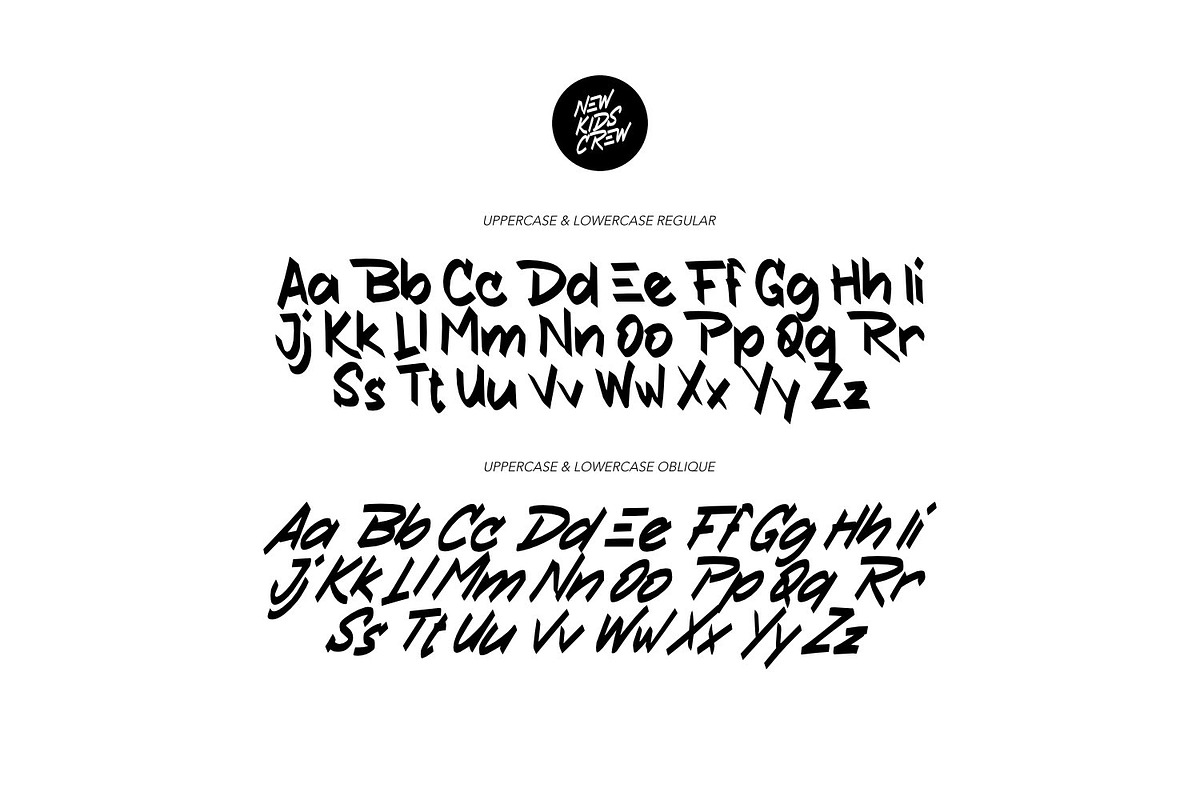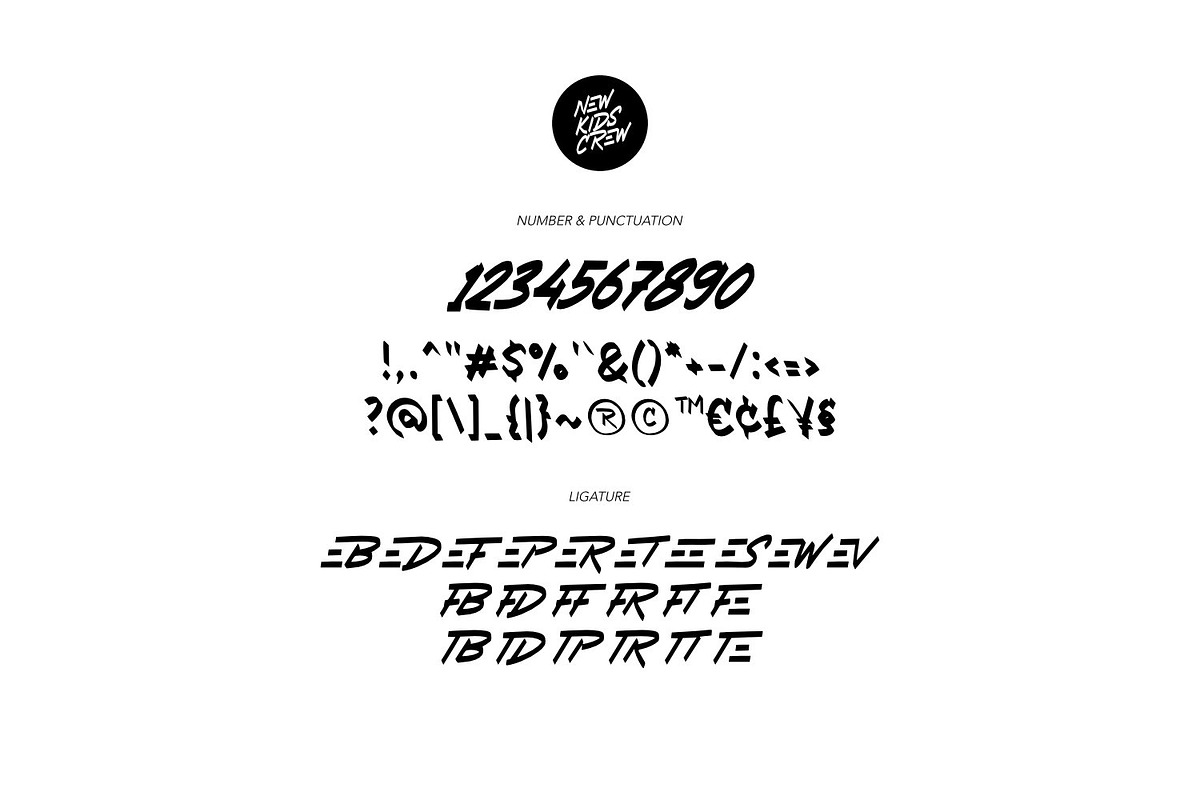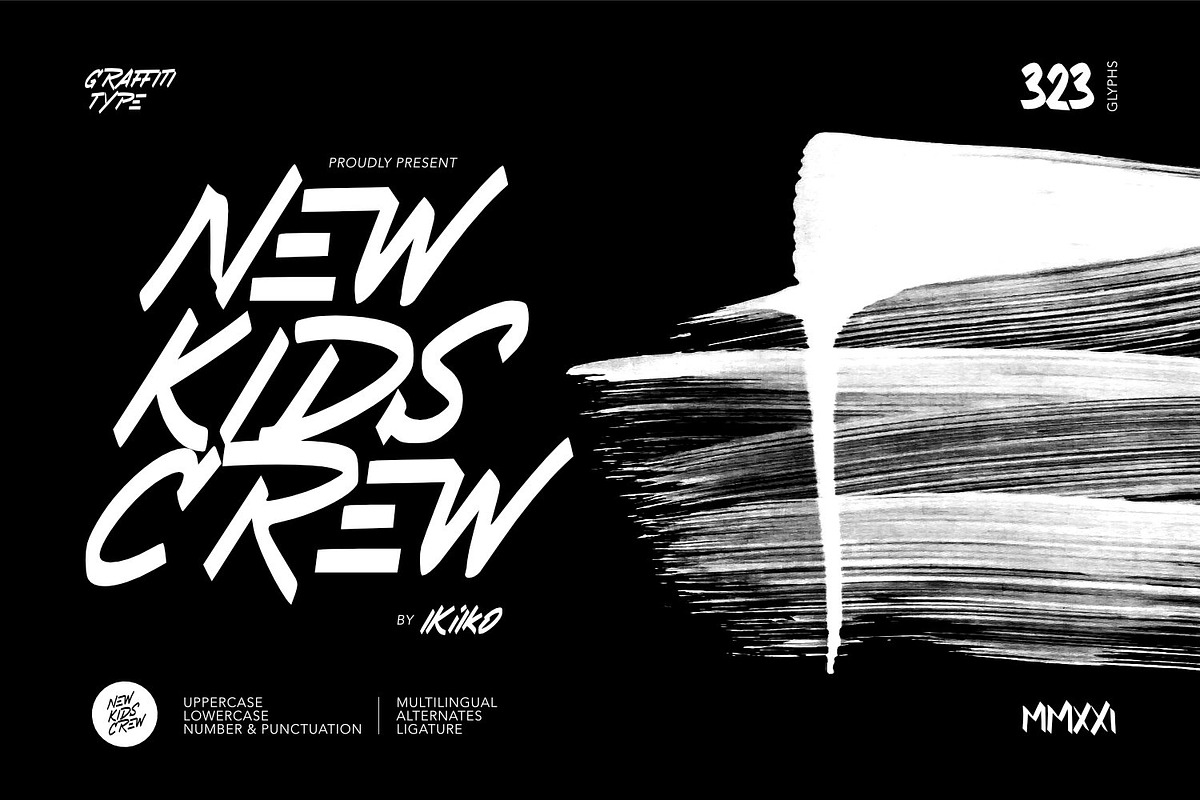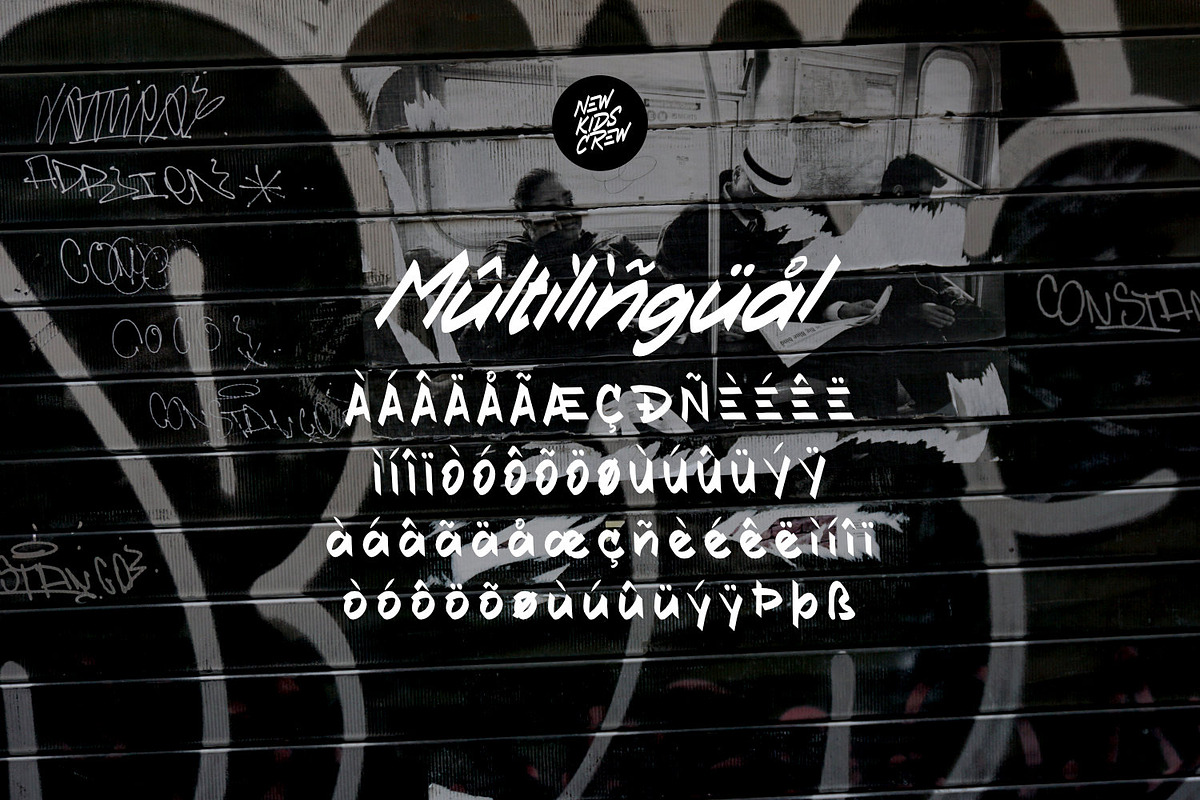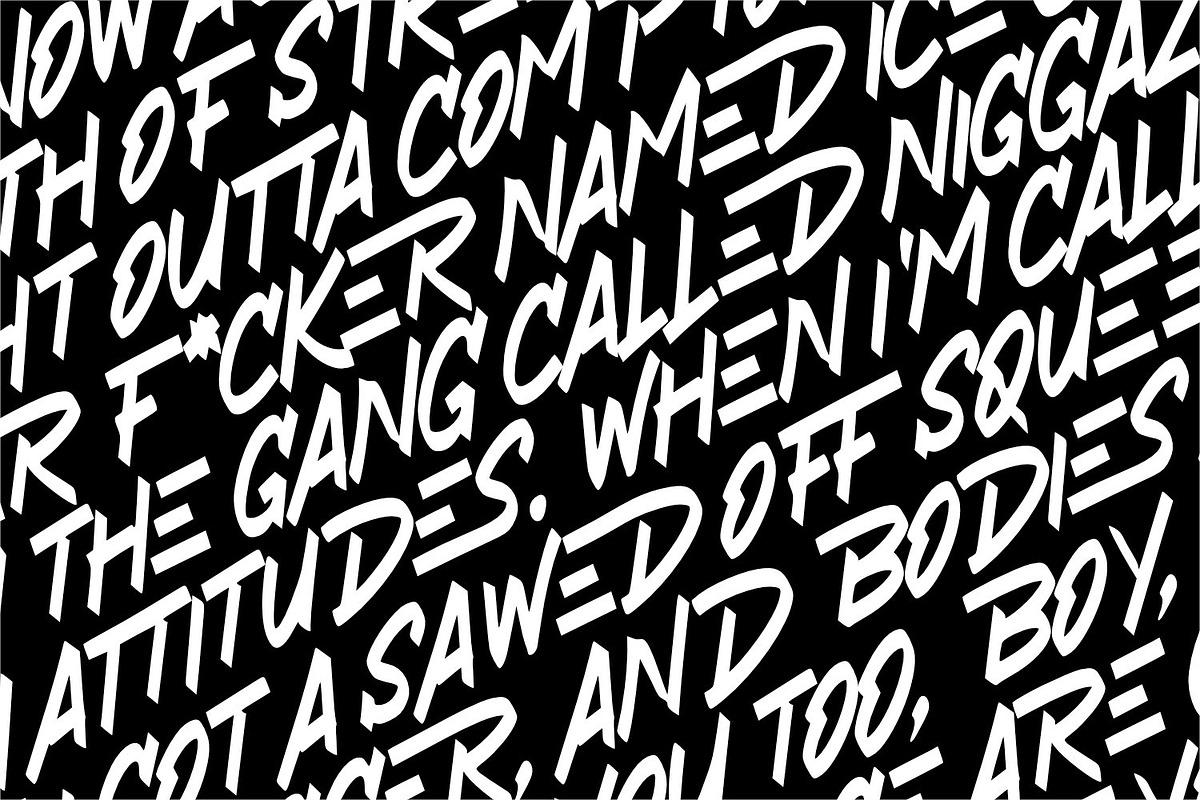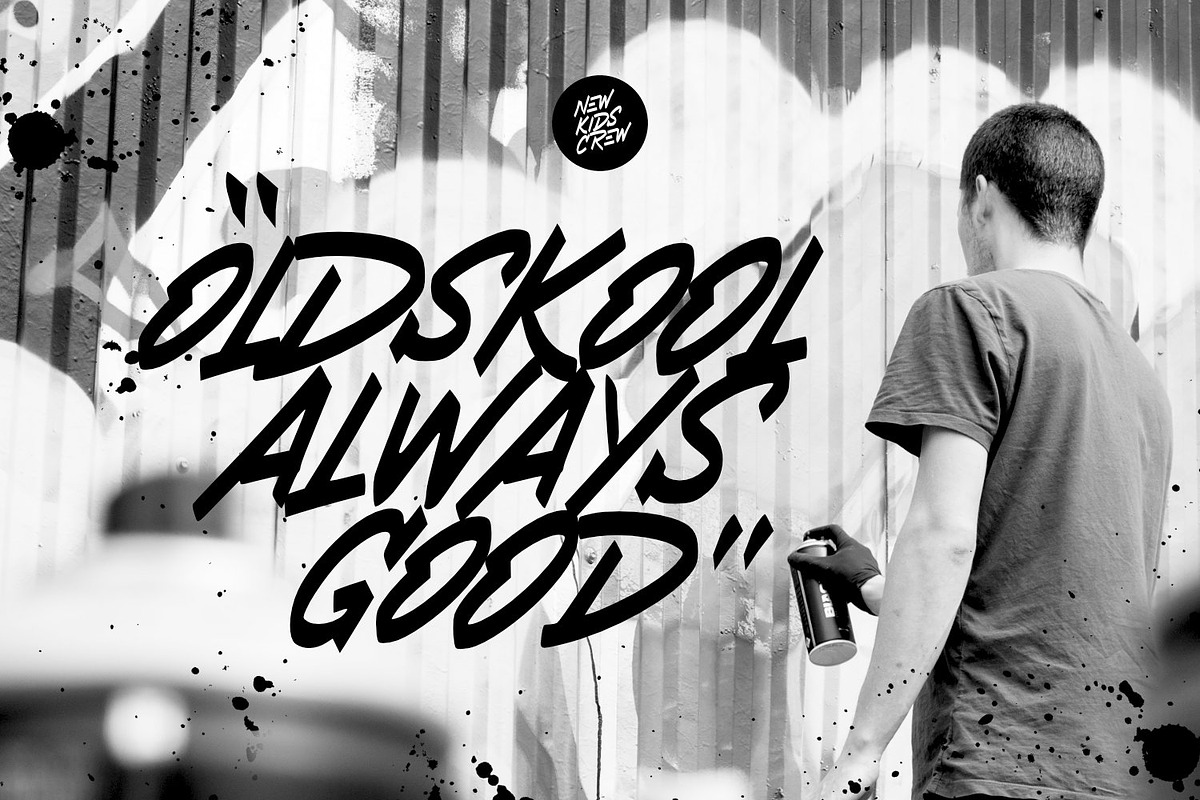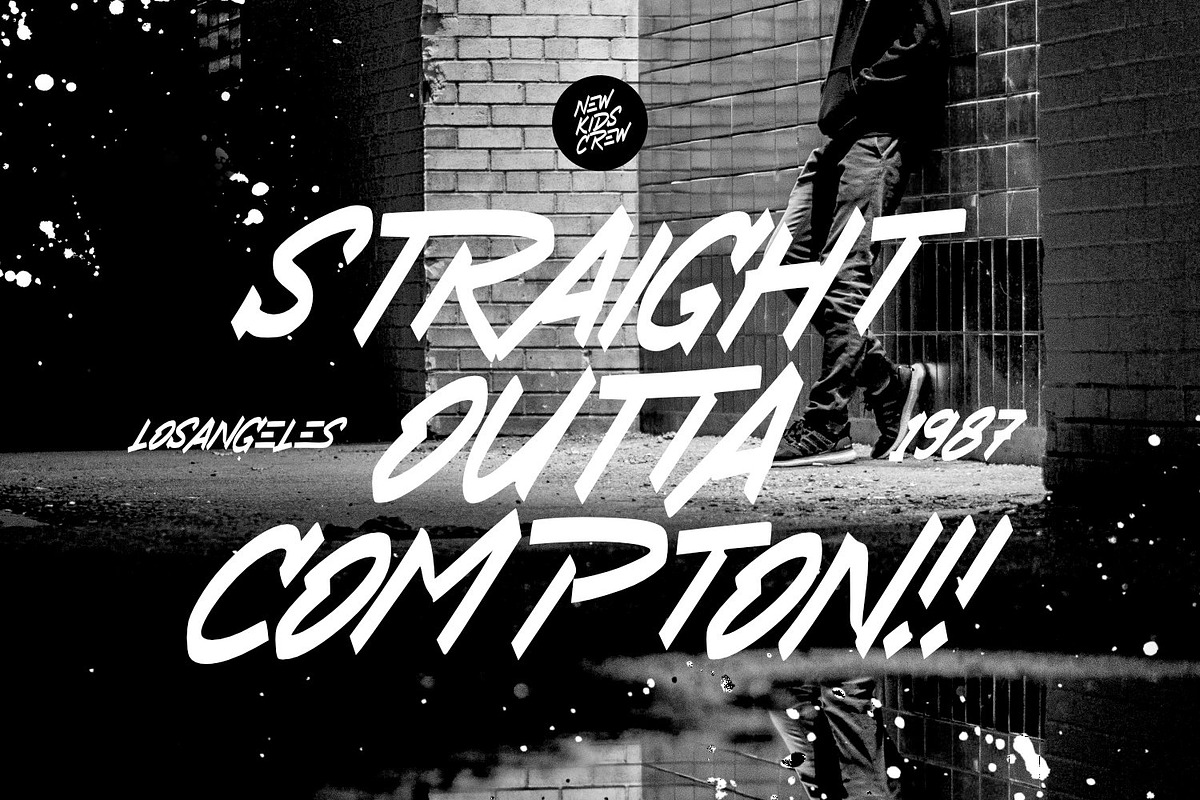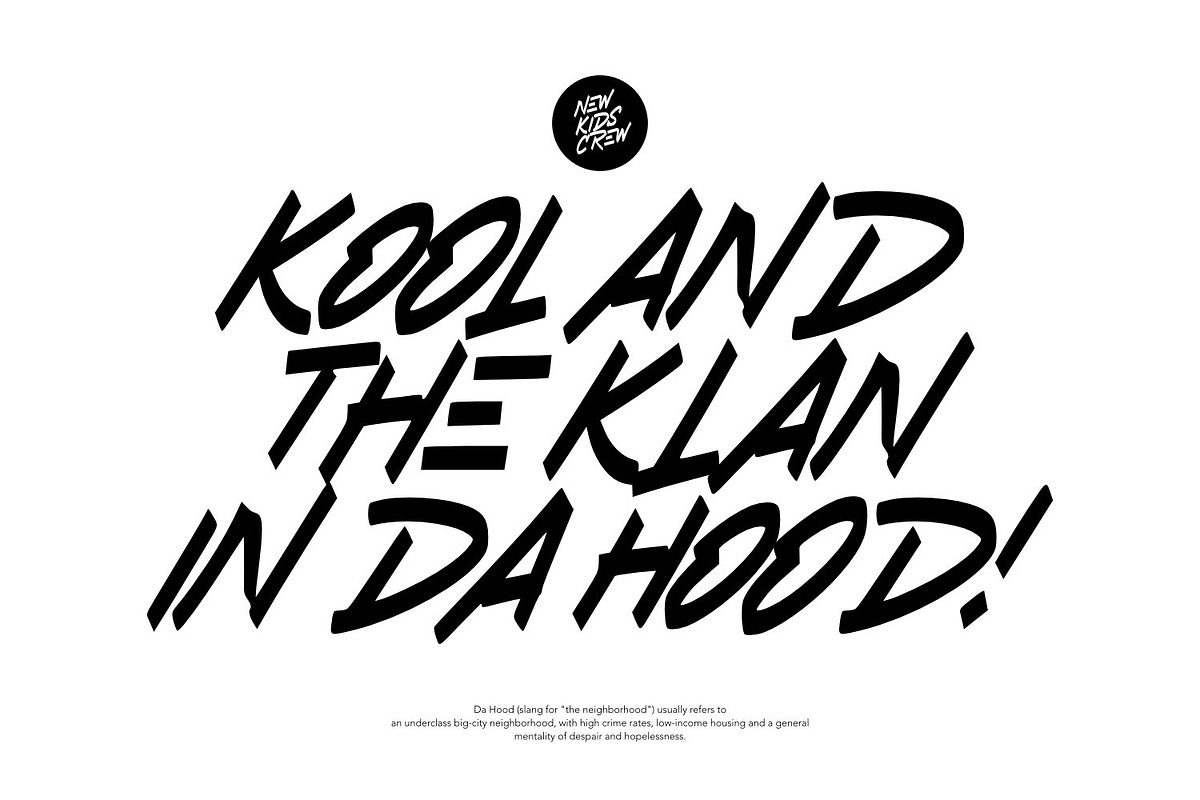
New Kids Crew - Graffiti Type
Proudly present New Kids Crew - Graffiti Type, created by ikiiko.
New Kids Crew is a raw and expressive brush font with touch of street style. This type has a freestyle shape that has the characteristics of freedom, youth and is filled with unique characters. This type is very suitable for making a poster, magazine layout, brand logo, sleeve cover, party flyer, quotes, or simply as a stylish text overlay to any background image.
- 2 Weight : Regular & Oblique
- Alternates & Ligature